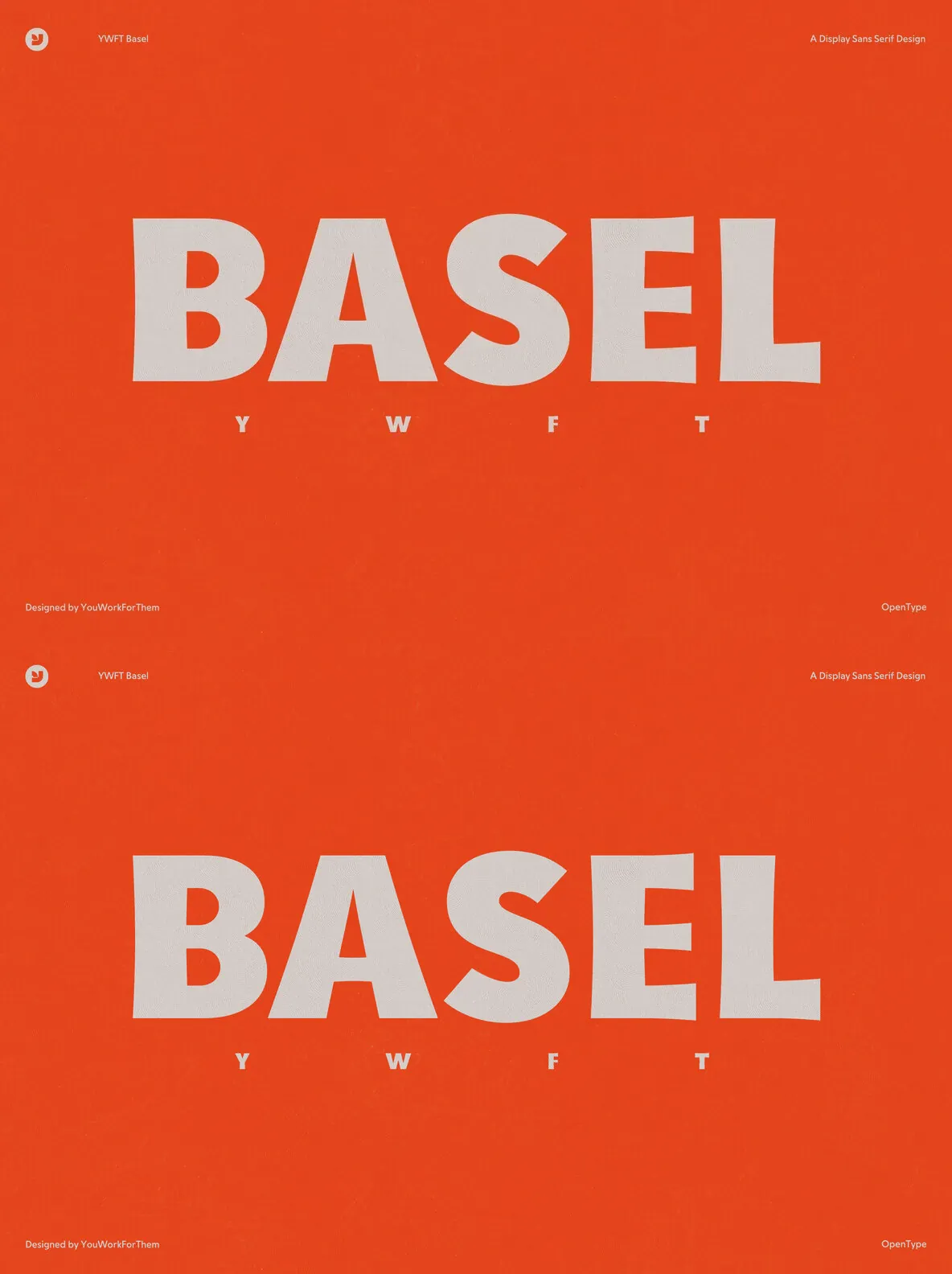
YWFT Basel, A Remarkable Heavy Sans-Serif Font
Devotees of design and devotees of the written word converge on an exquisite crossroads named YWFT Basel. As a calibrated revival of Spartan Black – the American iteration of Futura that debuted in 1936 – YWFT Basel effortlessly harnesses the enduring strength and adaptability of its predecessors. Conceived for the precision-oriented realms of graphic designers and marketing firms, YWFT Basel expertly packages the time-honored charisma of metal type into a versatile digital font.
Whether employed in print or digital domains, YWFT Basel impresses with its robust and unyielding presence. Its heavy sans-serif characterization, infused with the captivating simplicity of the modernist typeface, commands attention and endorses readability. The well-balanced contours articulate a visual synergy, making YWFT Basel a go-to choice for graphic design projects, brand identities, advertising campaigns, and beyond. Certainly, YWFT Basel transcends the standard definition of a font, standing tall as an entity that enlightens, elucidates, and engages audiences.
Features of YWFT Basel:
Robust sans-serif font that is readable and visually striking
Represents a revival of classic metal type fonts, updated for the modern digital era
Ideal for a wide variety of applications, from branding to publishing